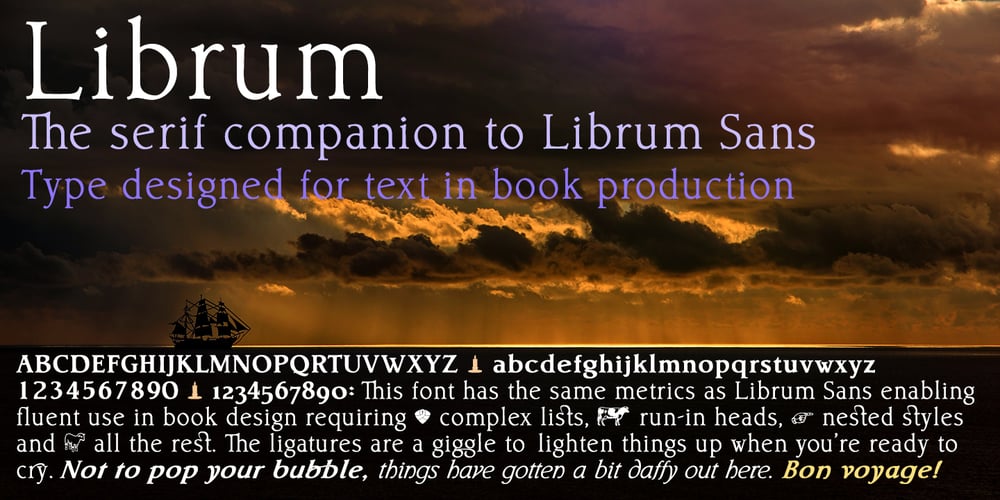
Librum
Librum font
Librum Font Family was designed by David Bergsland and published by Hackberry Font Foundry. Librum contains 4 styles and family package options. This is the serif text family for the book design group of font families which David designed in the process of writing “Practical Font Design With FontLab 5”. The letterspacing is set wide for body copy use. The main purpose is readability and reading comfort. There are several whimsical graphics, plenty of OpenType features: oldstyle figures [tabular and not], small cap figures, lining figures [tabular and not], discretionary ligatures, small caps, and so on. The feature set is limited for the italic and bold versions. It produces an exceptional book. See Librum Book Design Group for a package containing all fifteen fonts,